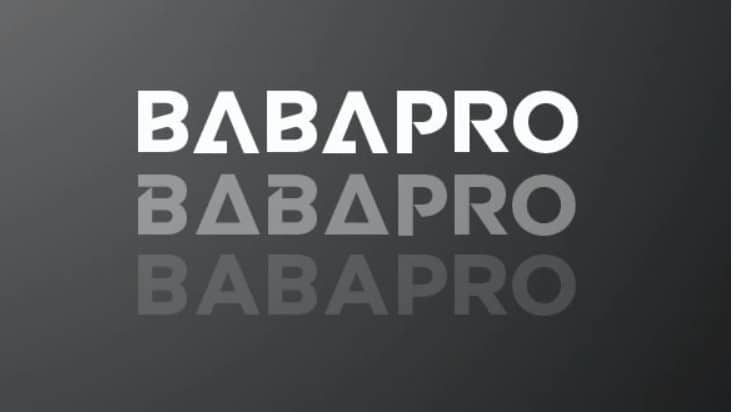
Babapro Display Font
Babapro Display Font is a new font for design of minimalistic logos. The font is suitable for creating word marks, titles, taglines. Made from font designer named Creative Killer. This font is perfect for those of you who like a minimalist and clean design. You can also use your initial name or your brand that looks luxurious, simple and expensive.